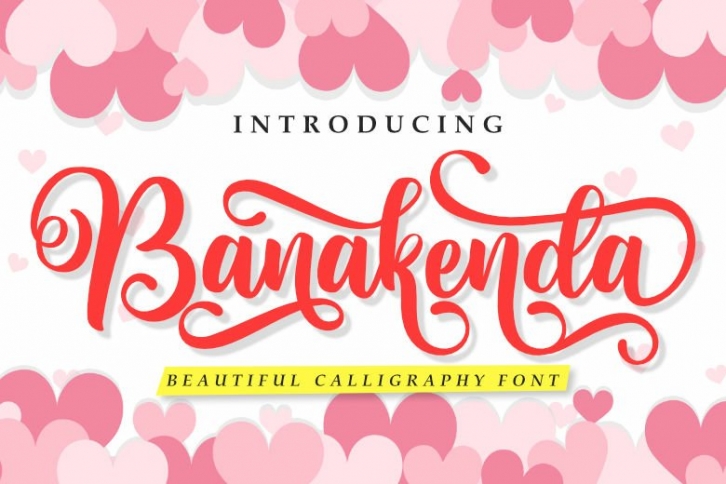
Banakenda | A Beautiful Calligraphy Font Download
Banakenda is a beautiful font that was designed by Madatype Studio. It's a great choice for designers and creatives who need such a font. It was released on January 26, 2021 and the file size is 8.41 MB. Banakenda may give a more youthful, expressive and casual look to your project. It is a very beautiful, refined, elegant, and high-quality font.